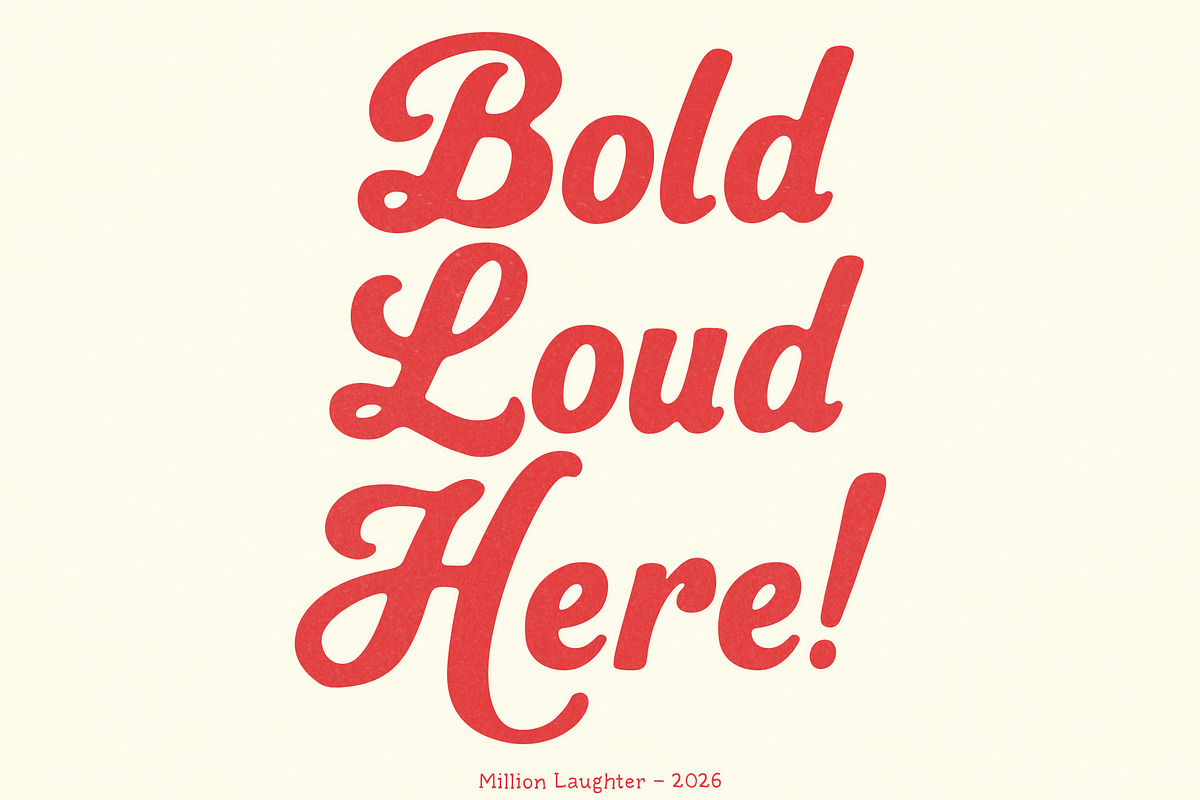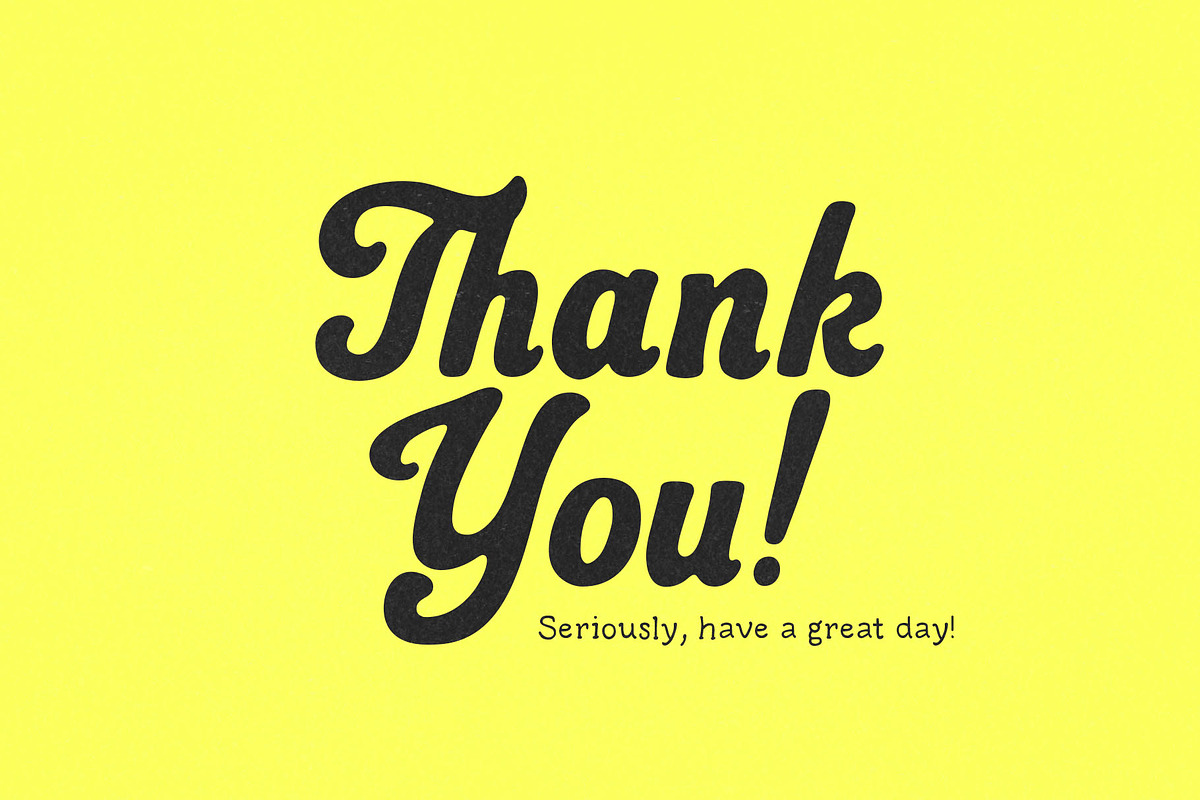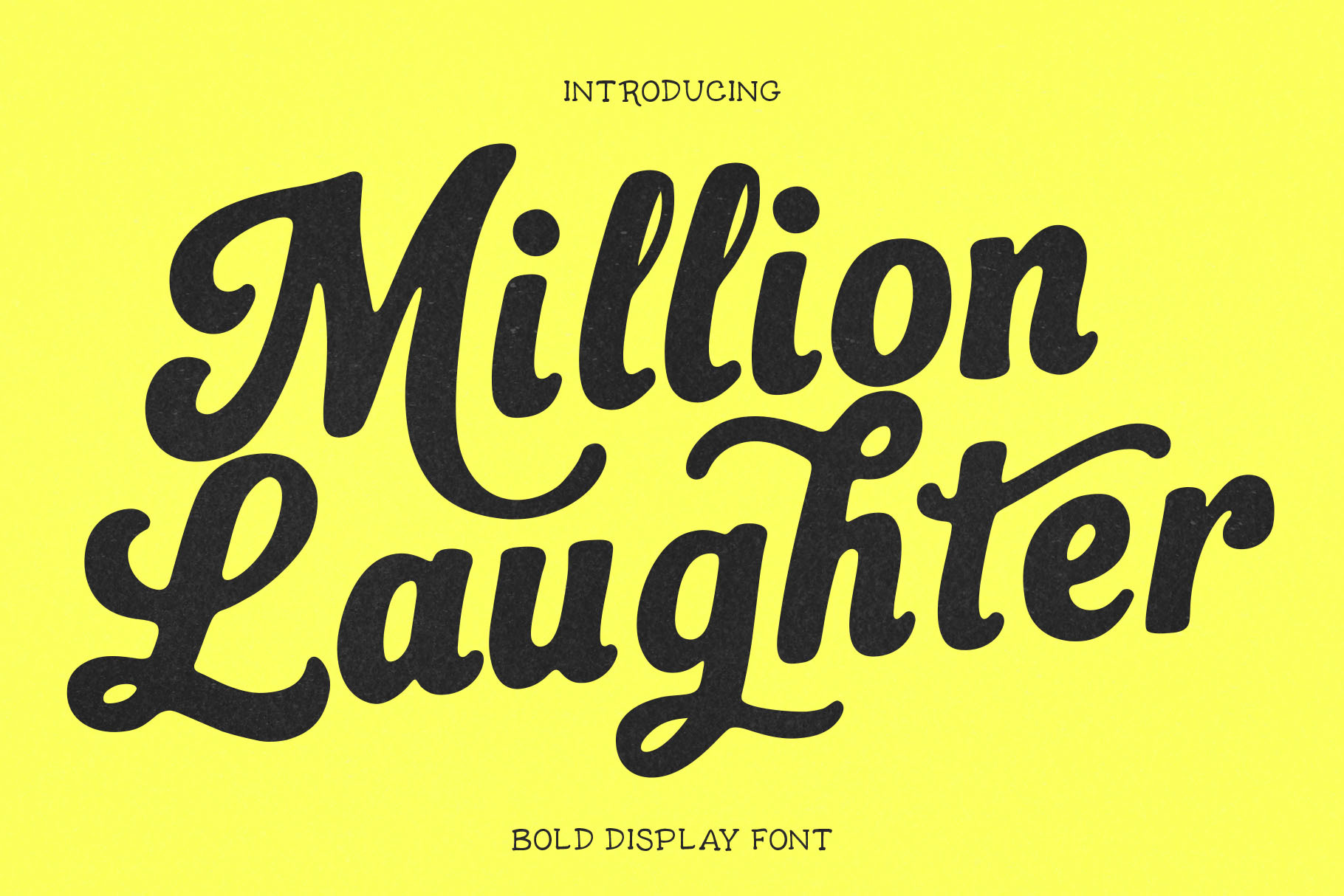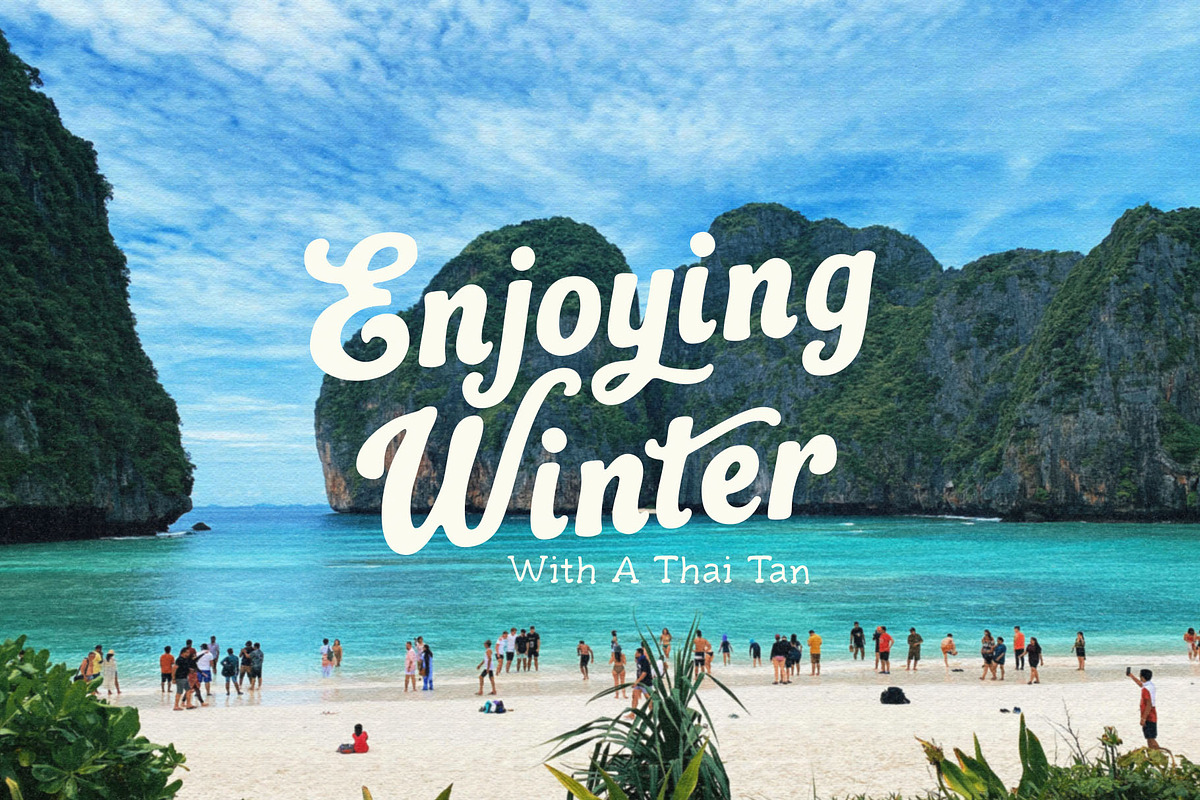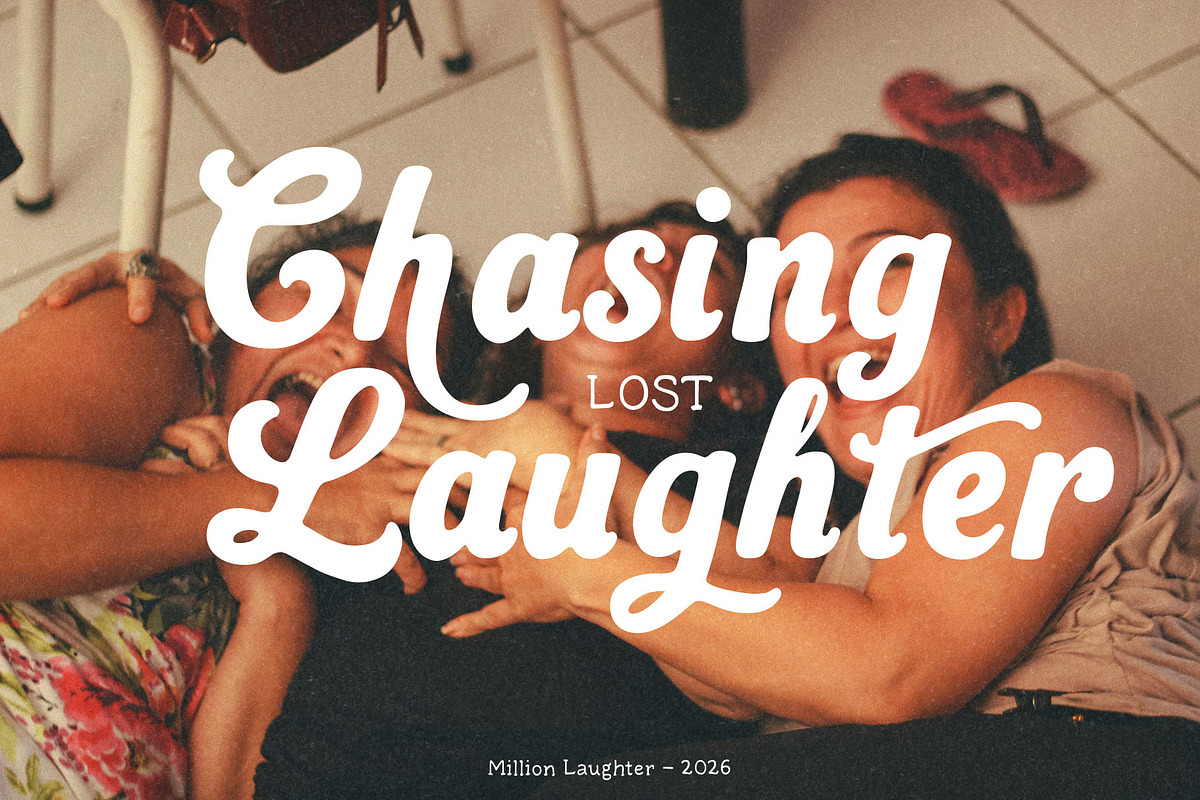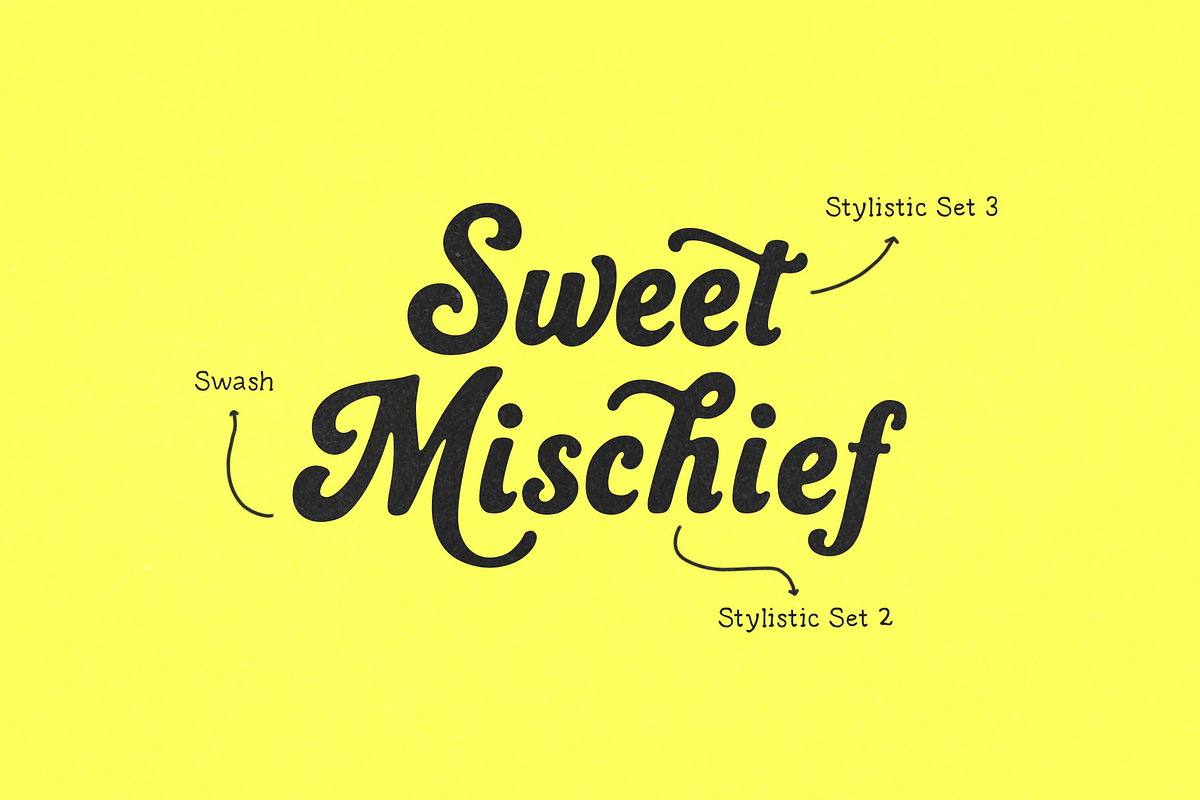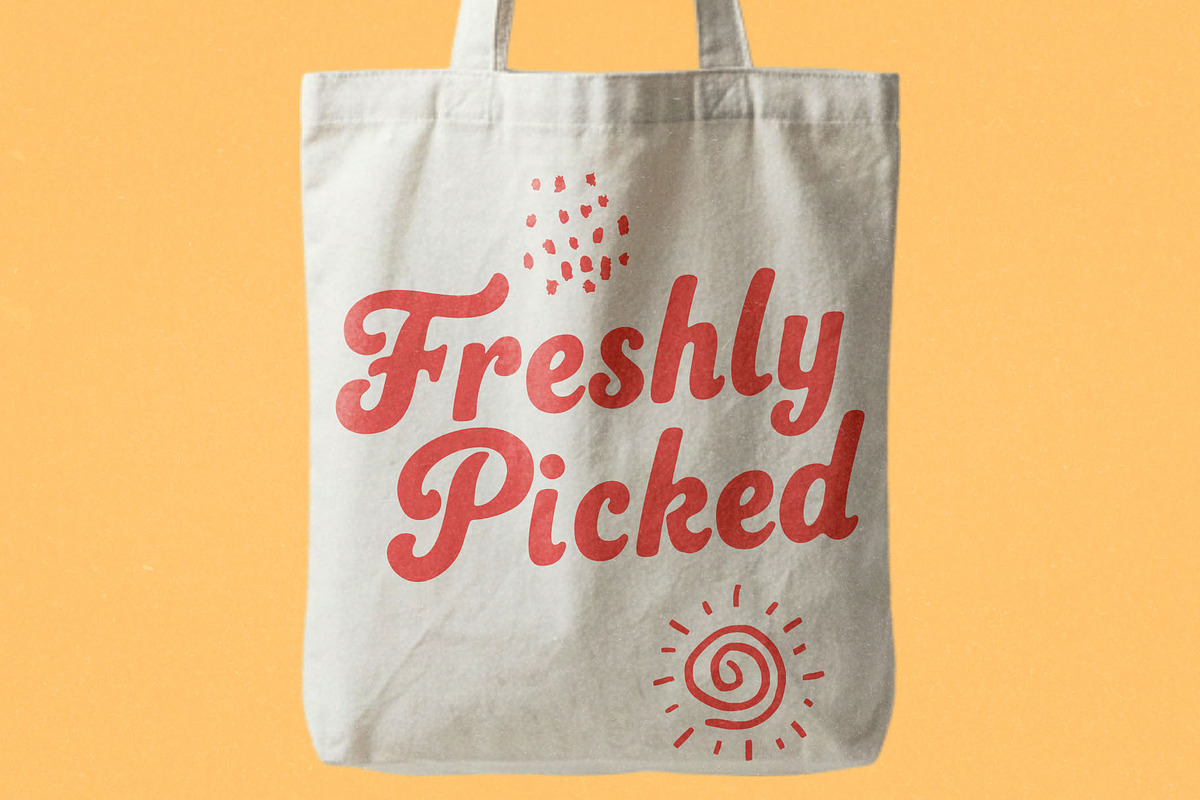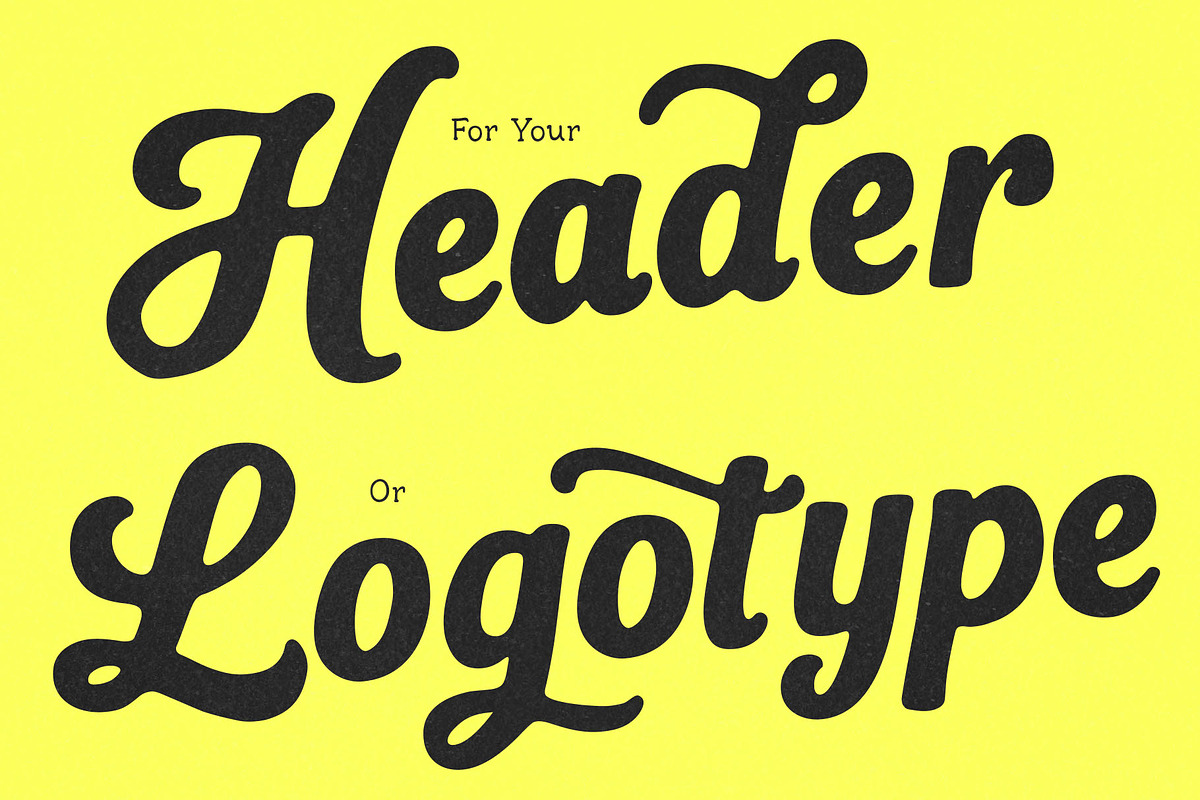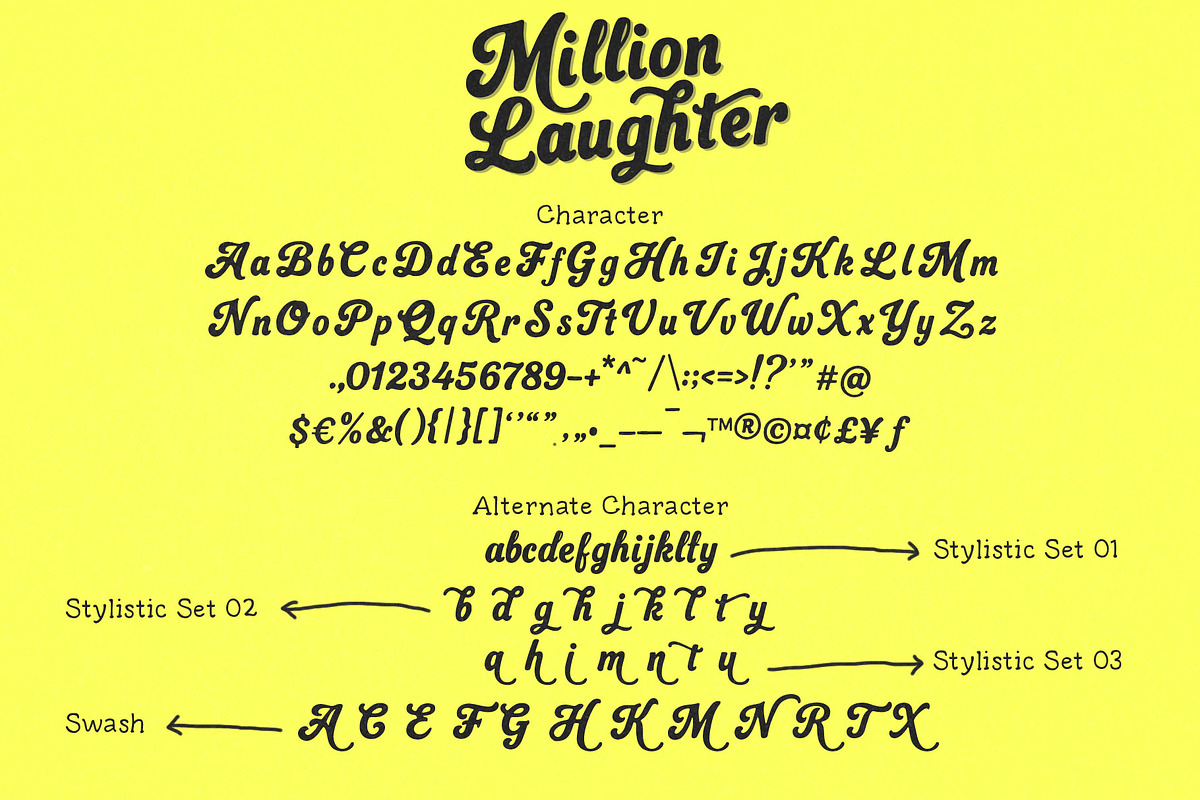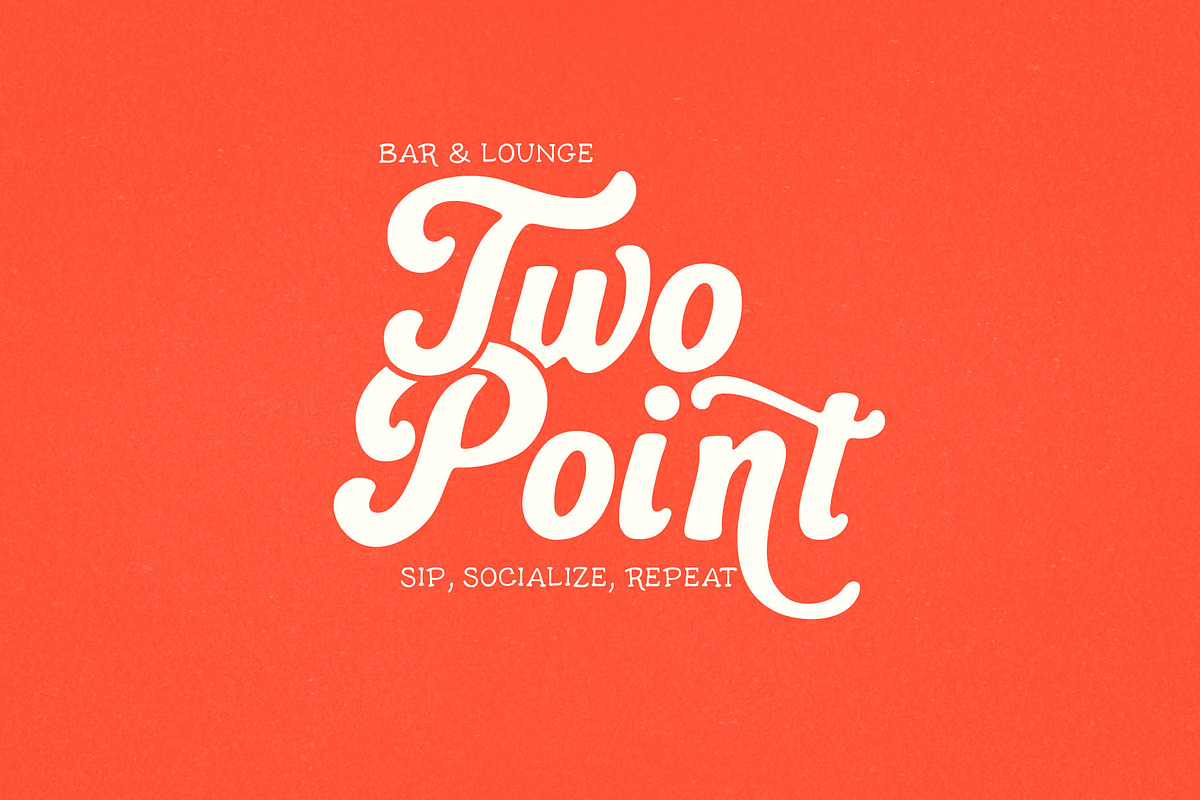
Million Laughter – Bold Display Font
Bring pure joy and high energy to your designs with Million Laughter, a bold display script font packed with warmth and personality. Inspired by genuine happiness and laughter, this font features thick, dynamic curves that gives your projects an authentic, handcrafted feel.
Million Laughter is engineered for ultimate creative flexibility. Packed with advanced OpenType features, it includes Stylistic Alternates (SALT) and three distinct Stylistic Sets (SS01, SS02, SS03). These features allow you to instantly transform standard letters into decorative characters with unique swashes and tails, giving you the power to create fully customized layouts.
Make your design projects look more vibrant, friendly, and unforgettable with the bold charm of Million Laughter!